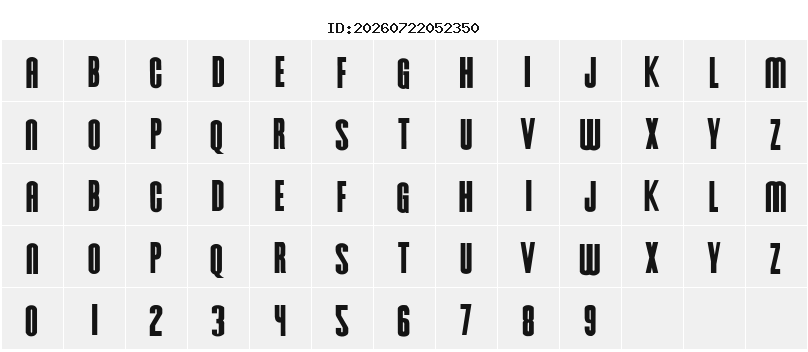
Hursheys Preview
• Font Name: Hursheys
• Full Font Name: Hursheys
• Designer: High-Logic - Erwin Denissen 1999
About Hursheys.ttf
Hursheys.ttf is a modern, elegant sans-serif font designed for ultimate readability and visual harmony. Perfect for branding, headlines, web design, and print materials.